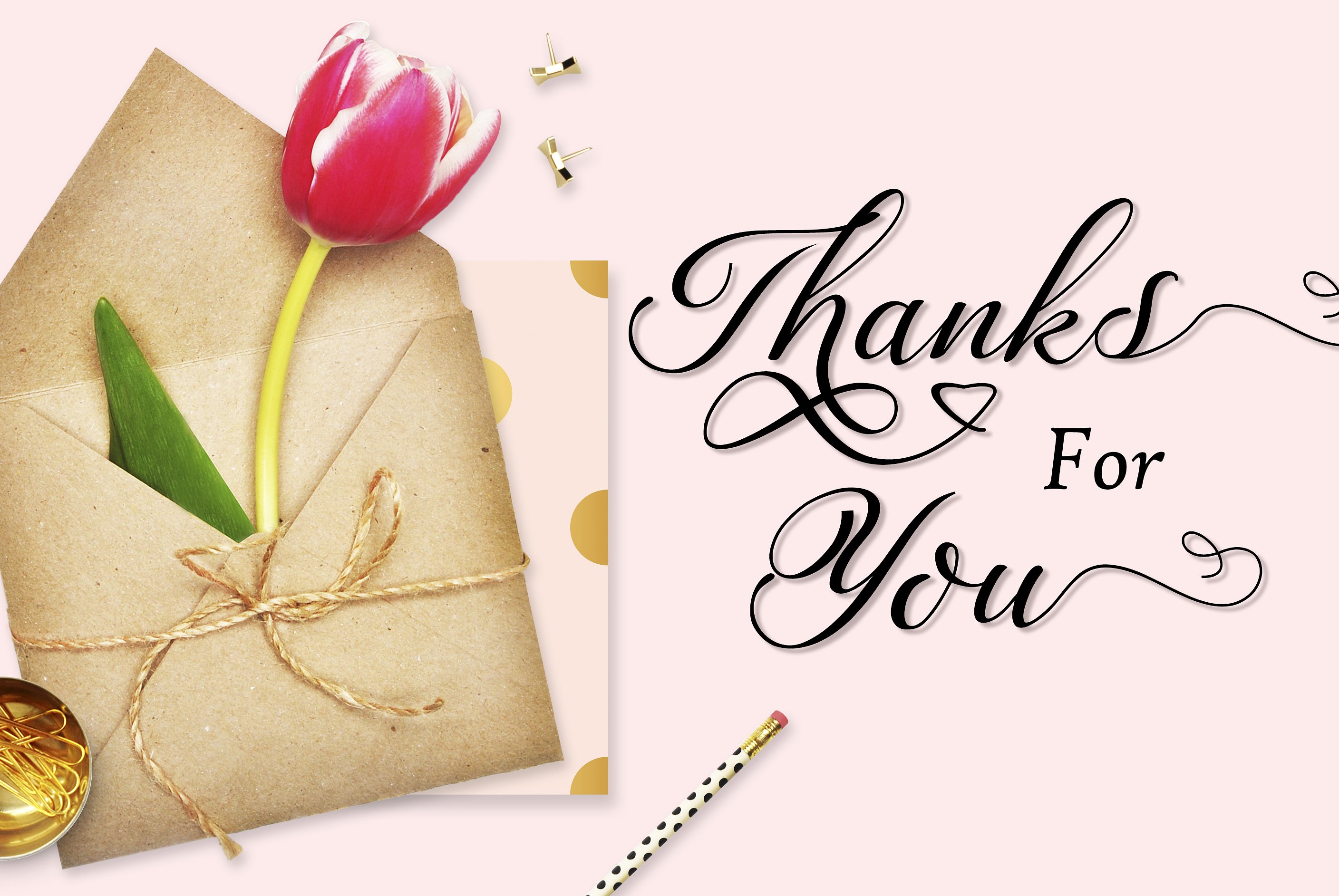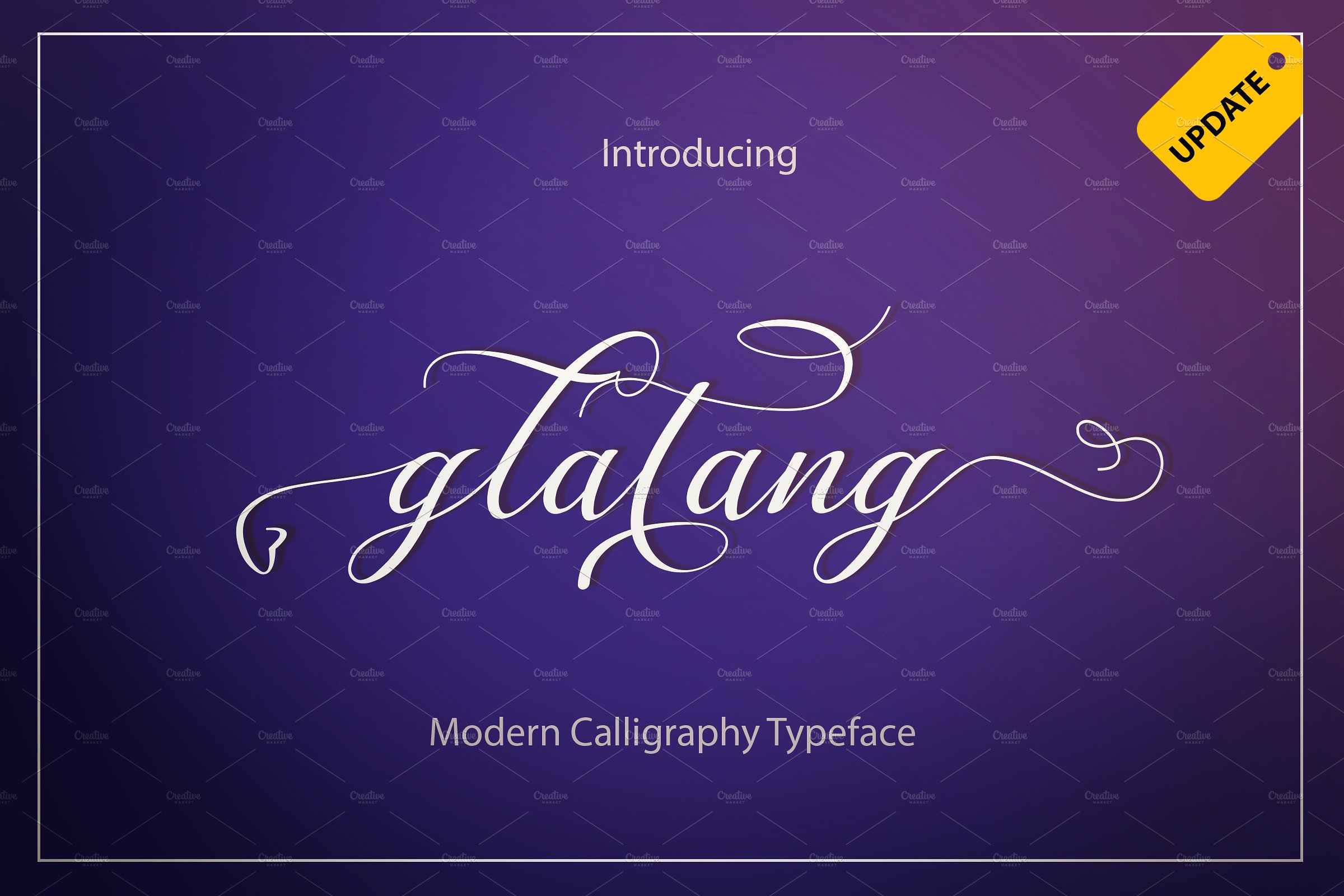
Glatang Calligraphy
Glatang Calligraphy Font
Glatang Script is a unique font script between classic and modern letters, every letter has been neatly made so that your text looks beautiful and clean. With a modern script style, this font will suit many different projects: quotes, blog headers, posters, weddings, branding, logos, fashion, apparel, letter, invitation, stationery, etc.This script includes an alternative flying machine.